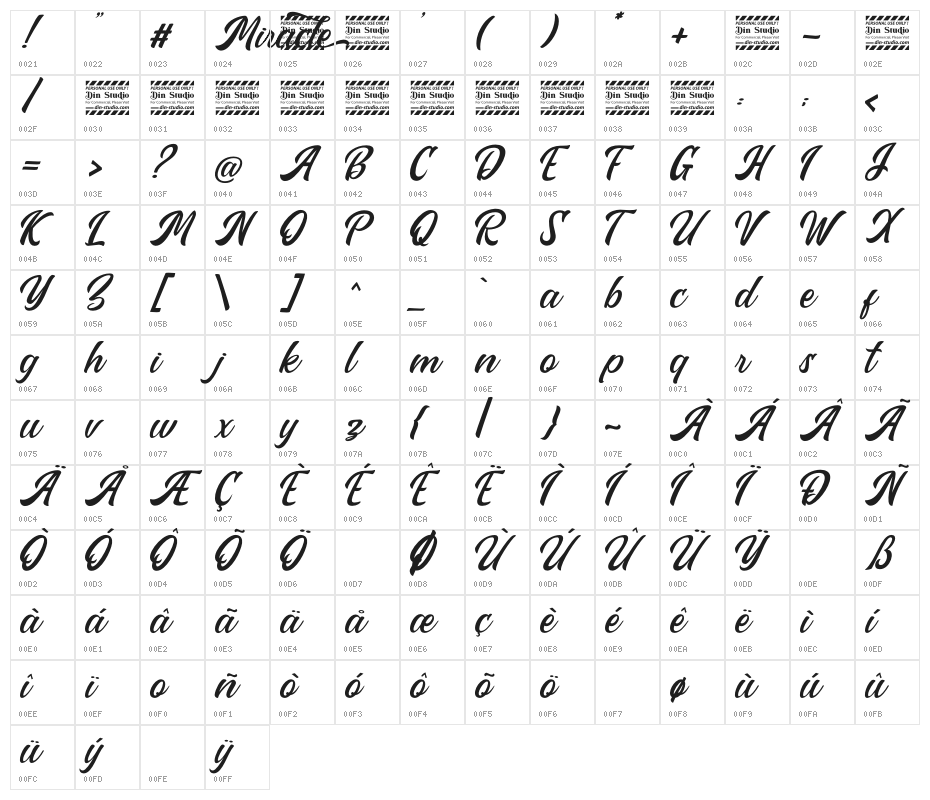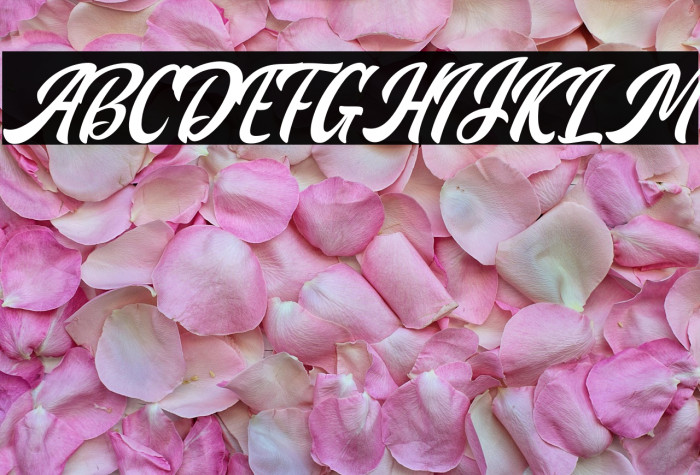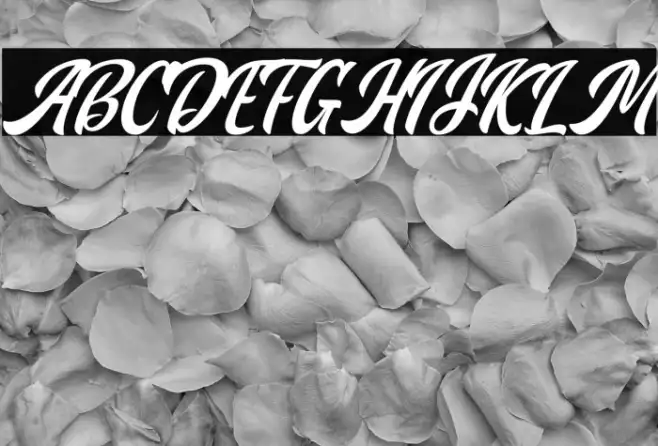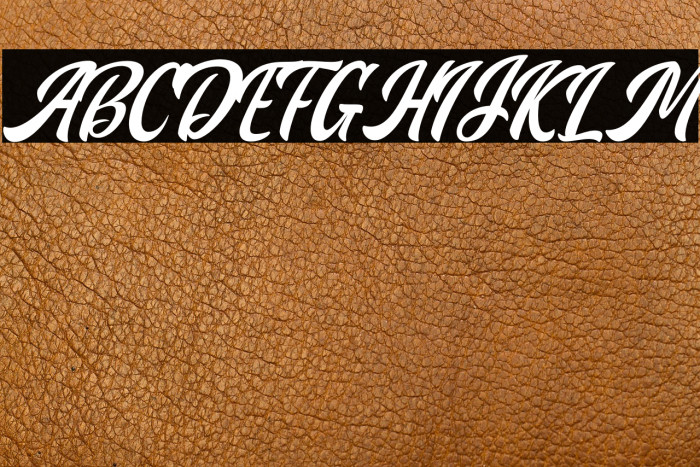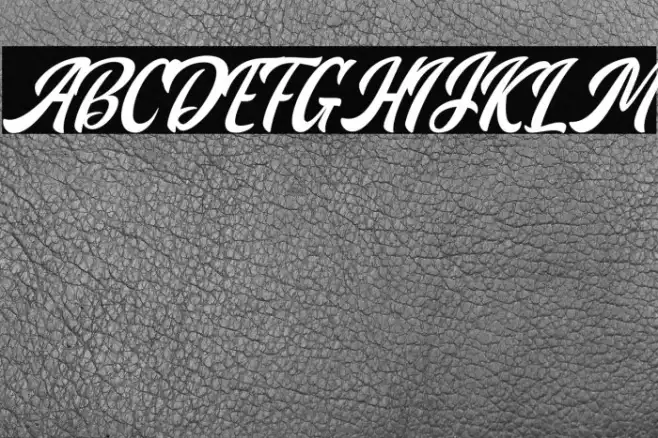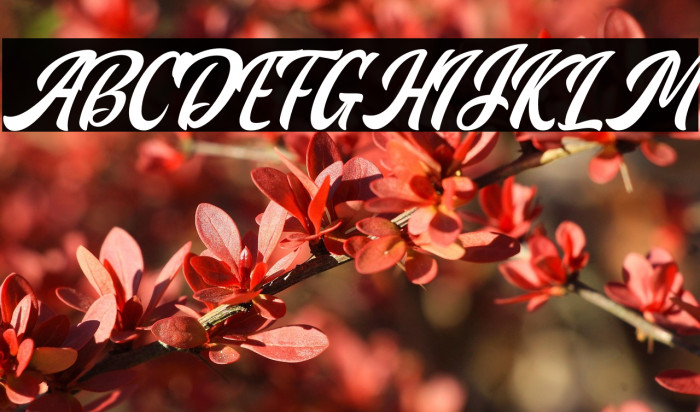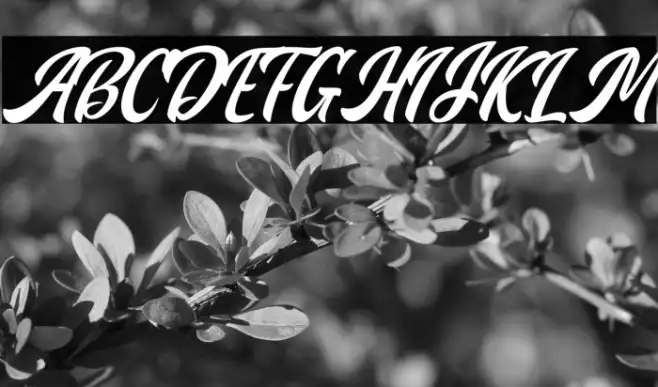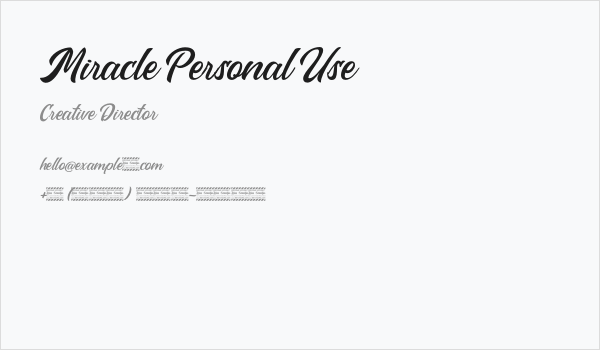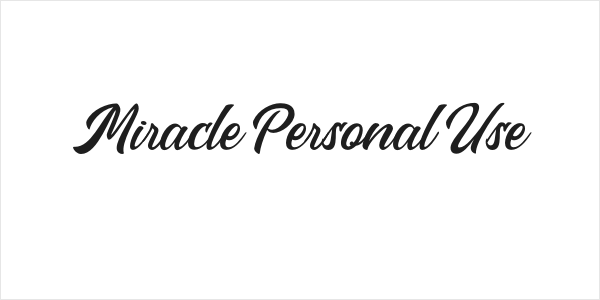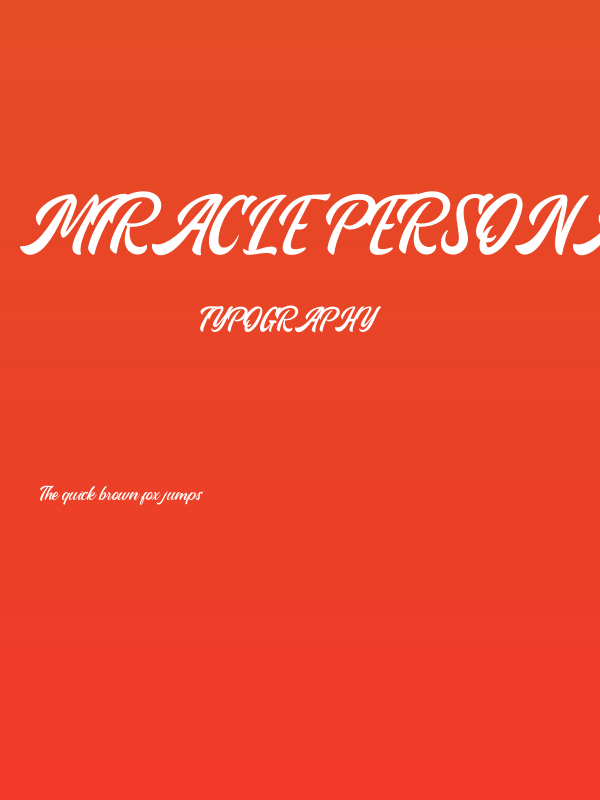
Miracle Personal Use Font
Miracle Personal Use Description
This font features a bold, flowing script style with a strong emphasis on elegance and fluidity. The characters are interconnected, creating a seamless and continuous look that is both sophisticated and dynamic. The uppercase letters are slightly larger and more ornate, while the lowercase letters maintain a consistent flow with subtle curves and loops. The numbers and special characters are designed to match the overall aesthetic, ensuring a cohesive appearance across all text. The font's bold weight and high contrast between thick and thin strokes make it stand out, ideal for creating impactful designs.
Overall StyleElegant
Use CaseLogos, Invitations, Branding
Proposed ProjectsIdeal for wedding invitations, branding, logo design, and elegant stationery.